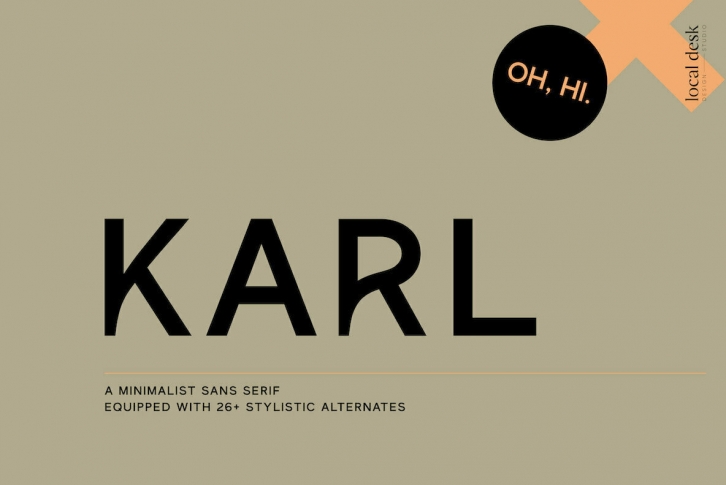
Karl is a bespoke & minimalist sans serif typeface that is perfectly suited for designing unique logos & brands, bold packaging, powerful website headers, and so much more!
This font is equipped with 26 stylistic alternates to make everything you design look refined, unique and professional – your next design project will come together effortlessly. The thoughtfully & somewhat irregular designed alternates in combination with the clean main characters create a perfect balance for your design project. Karl saves you from having to find the perfect font pair for your next design project.
This font is perfect for: bold branding, unique cover designs, stylistic headings, clean packaging, meaningful quotes and so much more.